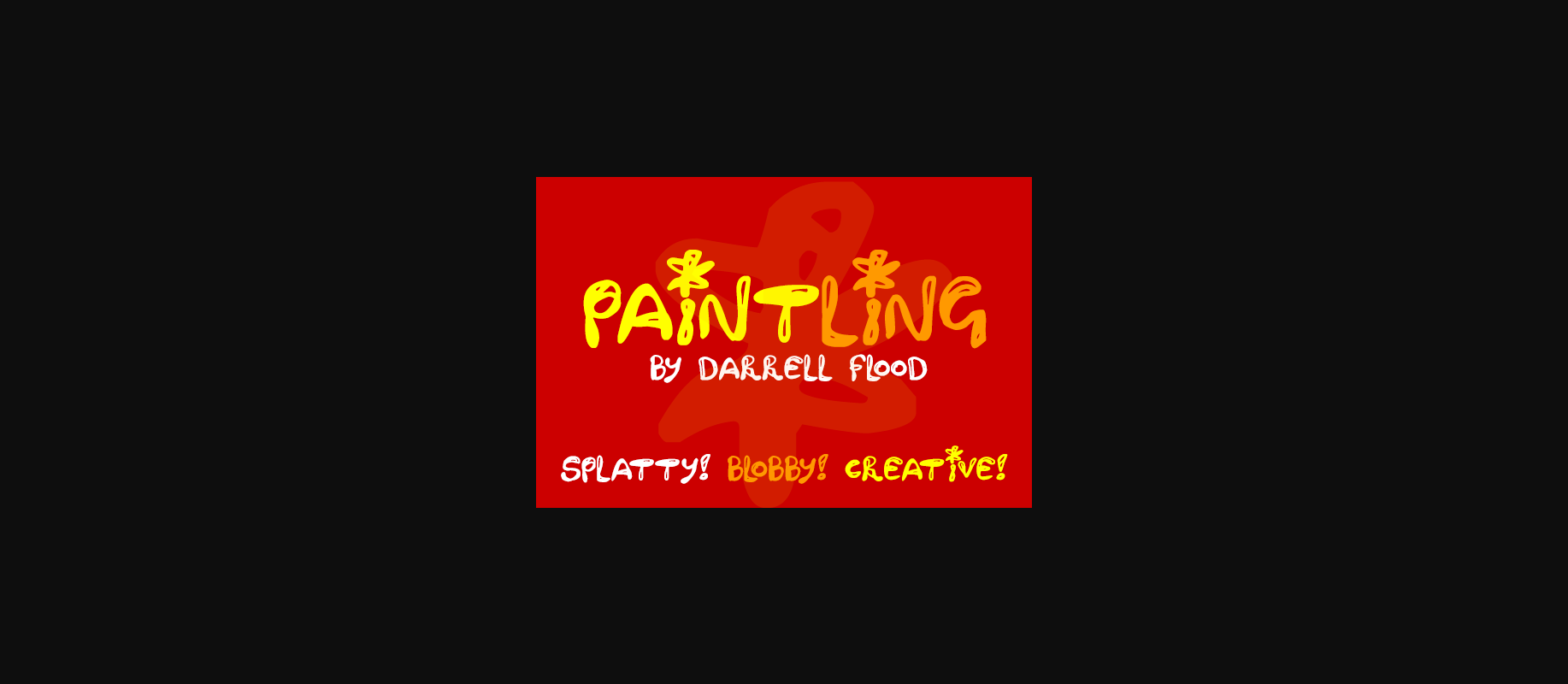
Paintling Font
Paintling is a cute, splatty font in a painterly style. Child-like strokes and wobbly loops combine to create a care-free feeling in the typeface, and can add a youthful appeal to your projects or designs.